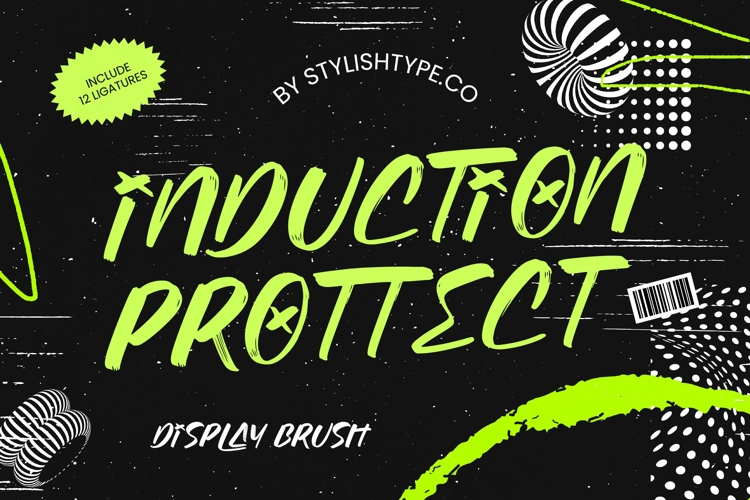
Induction Prottect - Display Brush
Unleash raw creative energy with Induction Prottect - Display Brush, a powerhouse typeface designed to command immediate attention. This expressive brush font captures the authentic spirit of street-style typography, blending hand-drawn textures with a high-impact aesthetic. Its bold, fluid strokes provide a kinetic visual rhythm that is perfect for designers looking to inject a sense of rebellion and modernity into their visual identities.
Global accessibility is at the heart of this typeface's engineering. With its extensive multilingual support, Induction Prottect - Display Brush adapts seamlessly across global markets, making it incredibly versatile for international projects. Whether you are targeting a local niche or an international audience, the robust character set ensures your brand message remains visually consistent and impactful across various languages and regions.